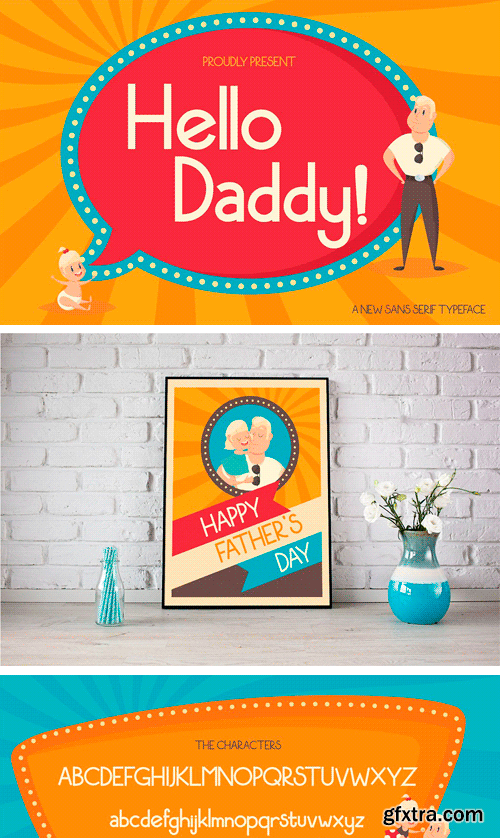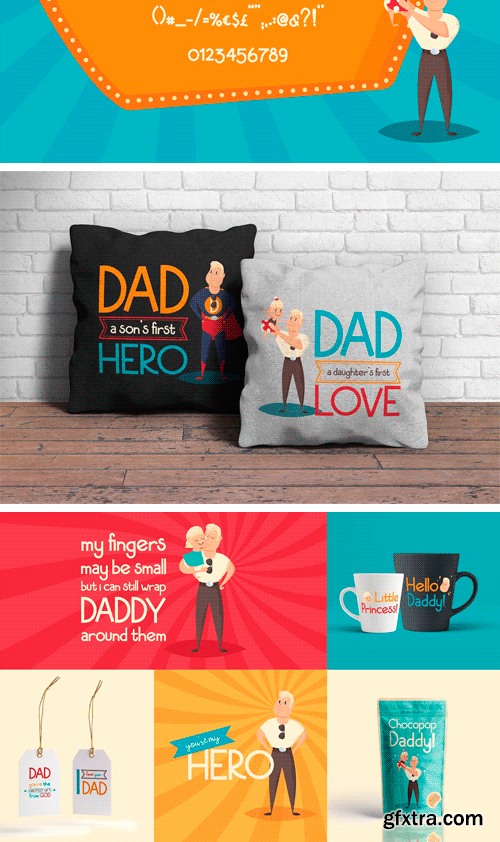
Hello Daddy a new fresh & modern sans serif with a handmade style and full of happines. its really great font for your title, quotes, etc. Just have a great fun with Hello Daddy on your design!